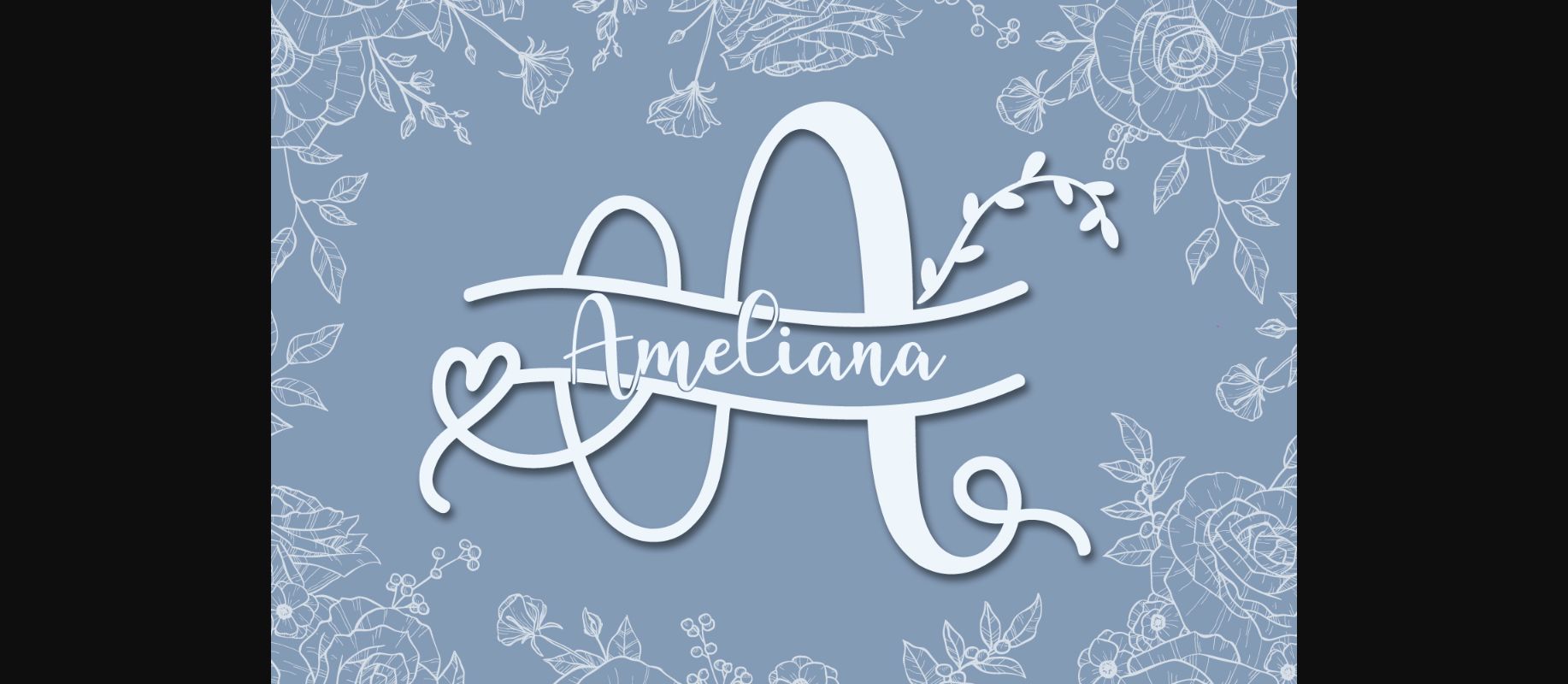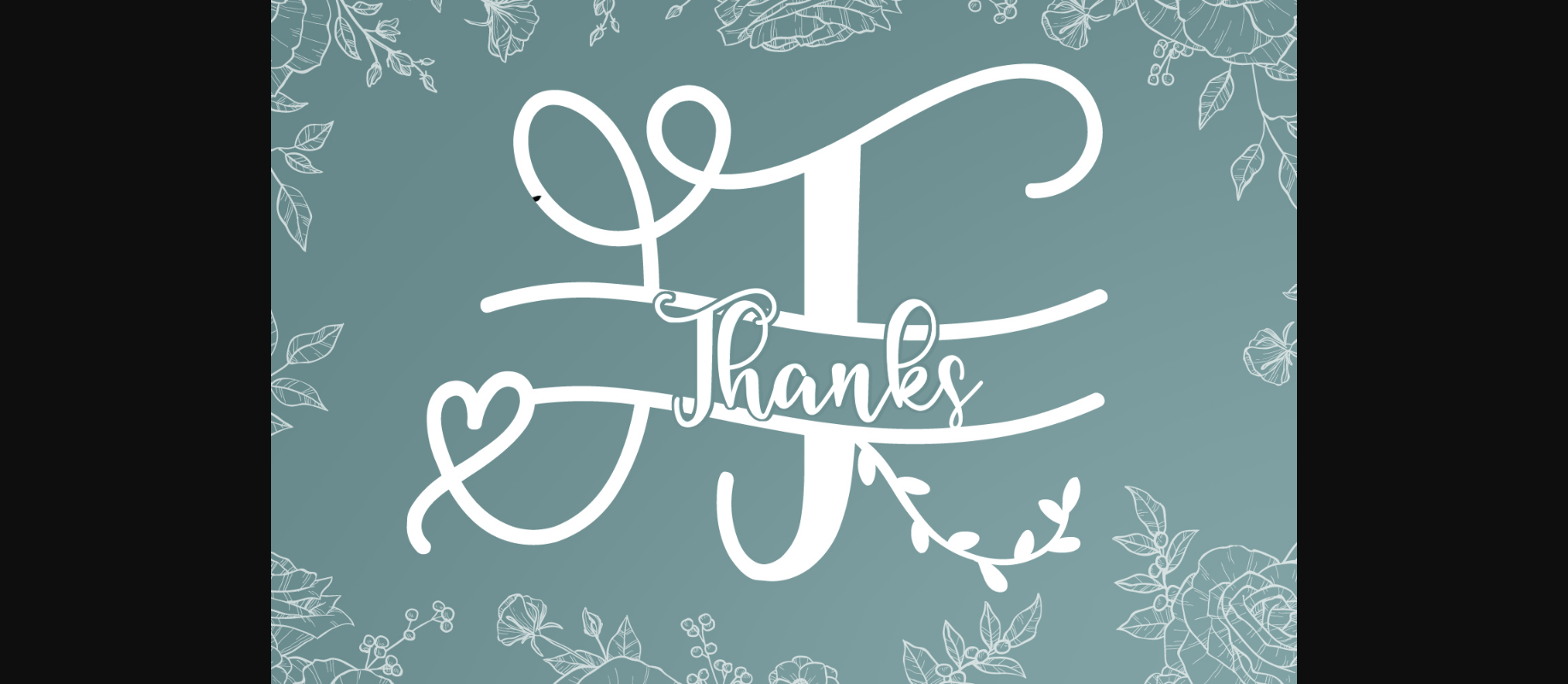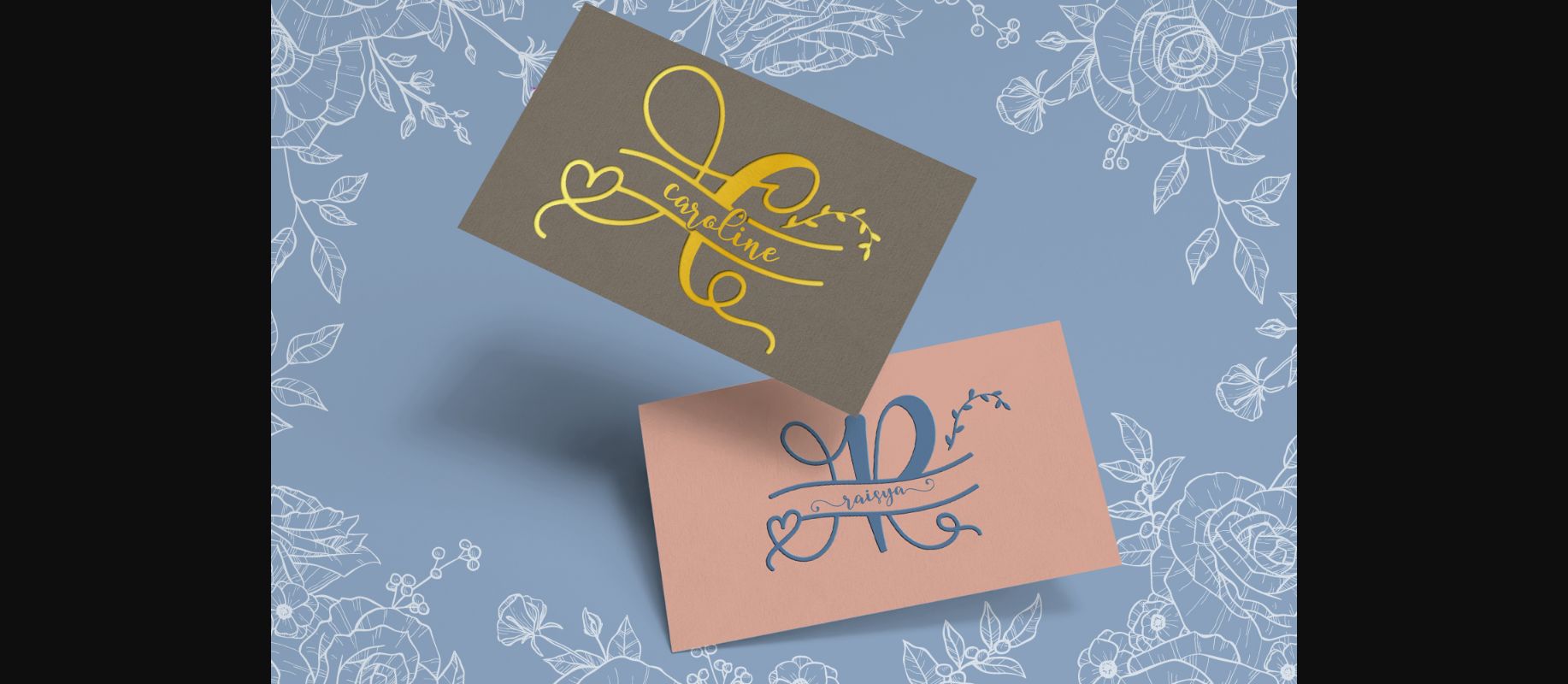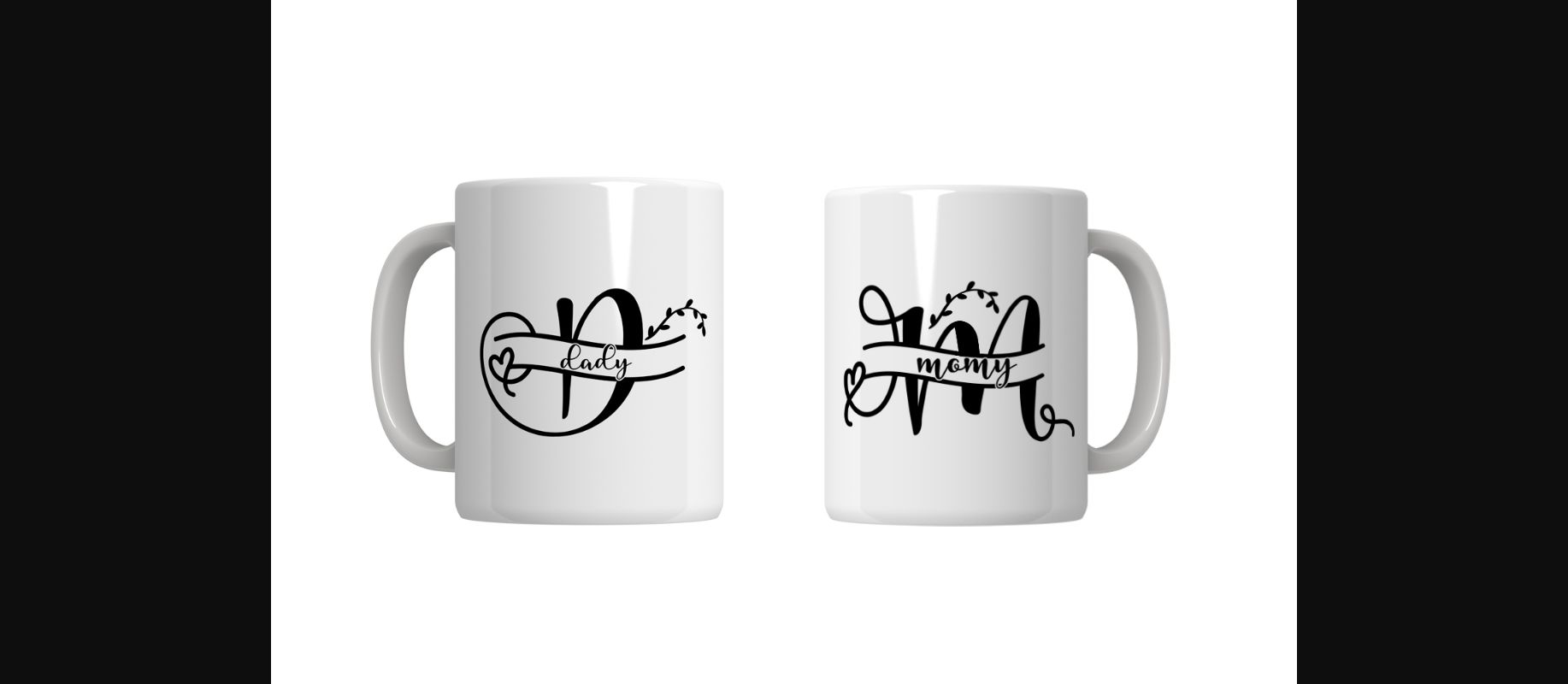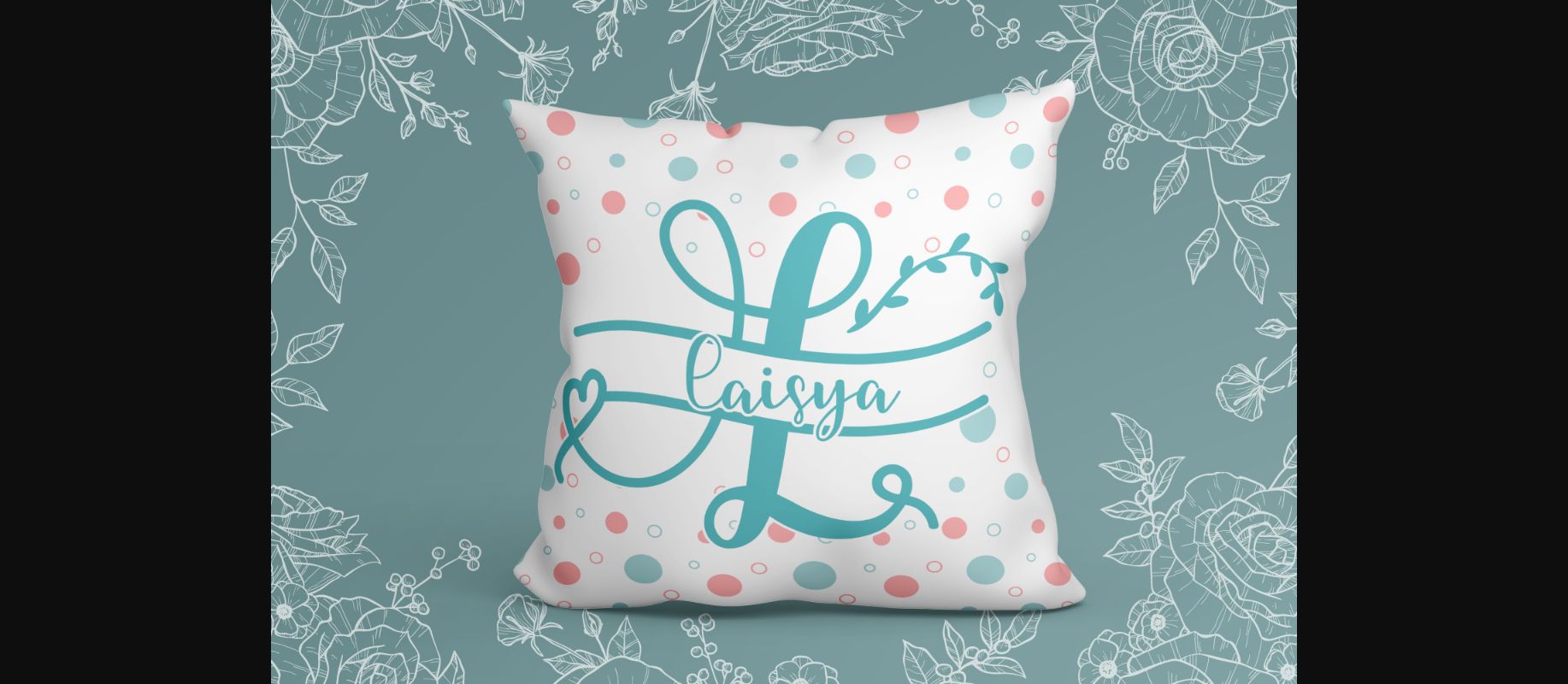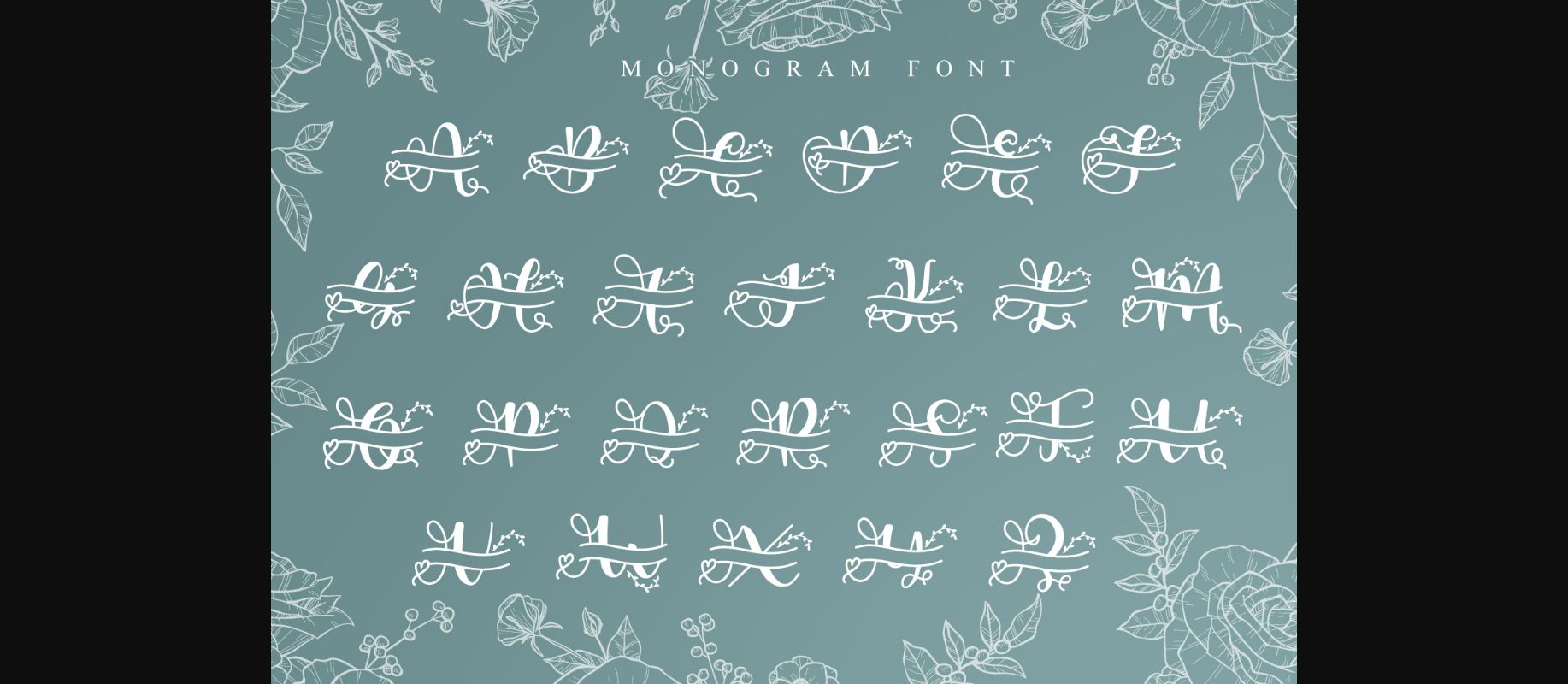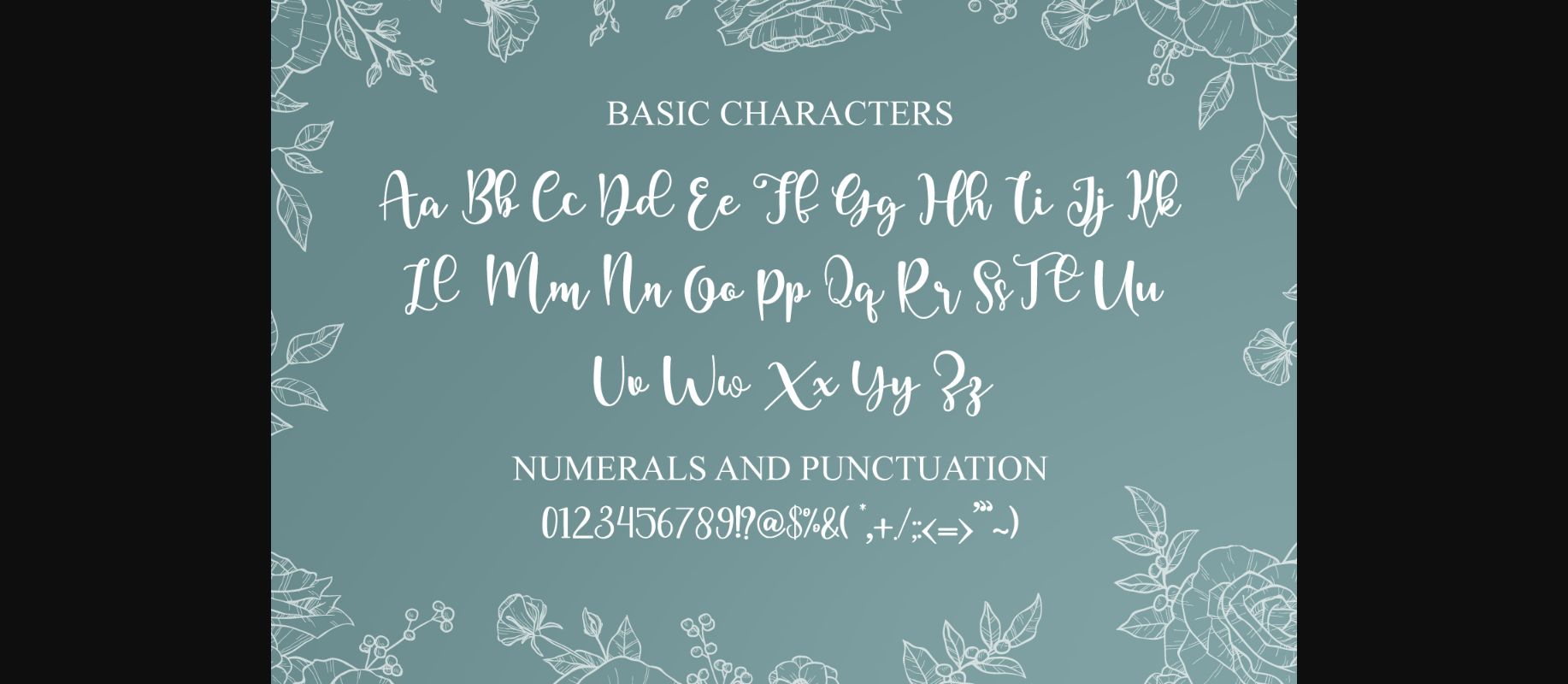
Ameliana Monogram Font
About Ameliana Monogram Font
Ameliana Monogram is a sweet decorative font. Fall in love with its authentic feel and use it to create gorgeous wedding invitations, beautiful stationary art, eye-catching social media posts, and cute greeting cards.